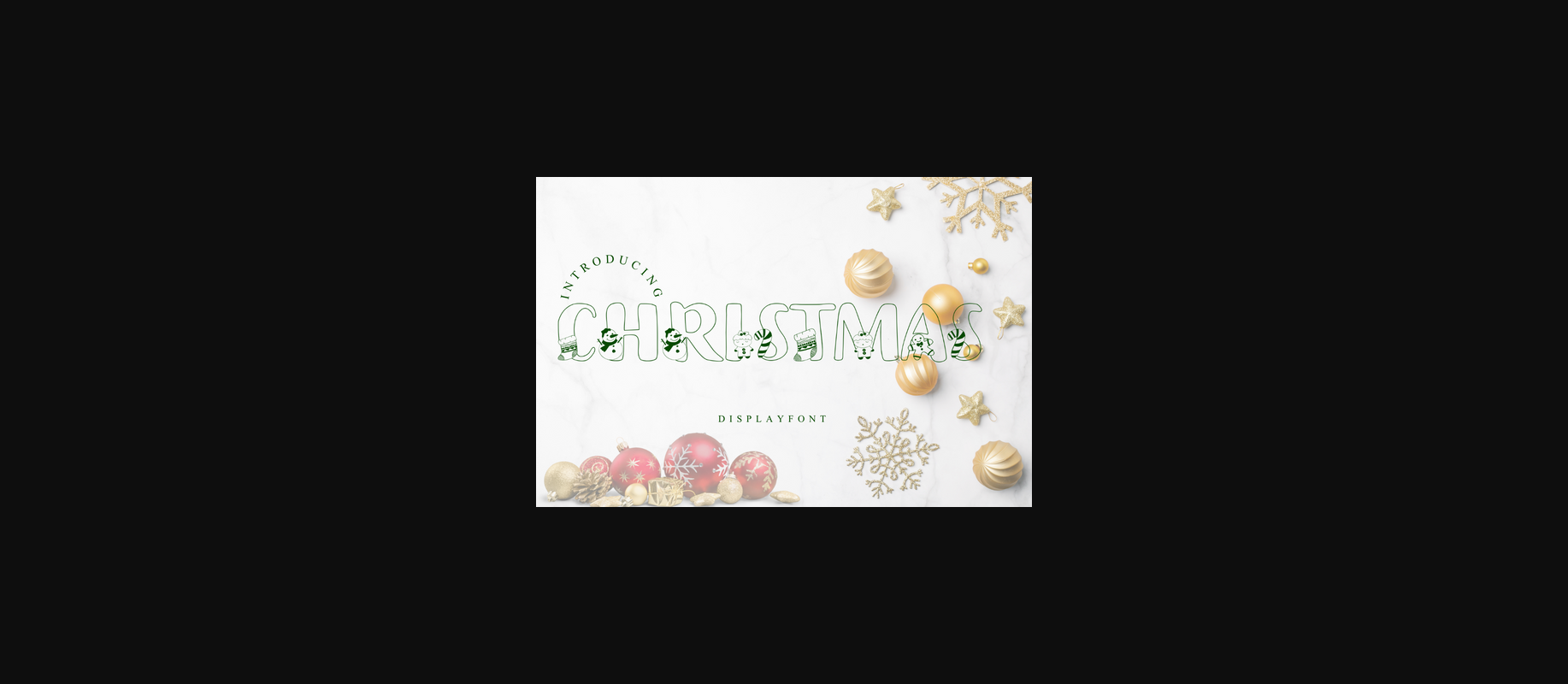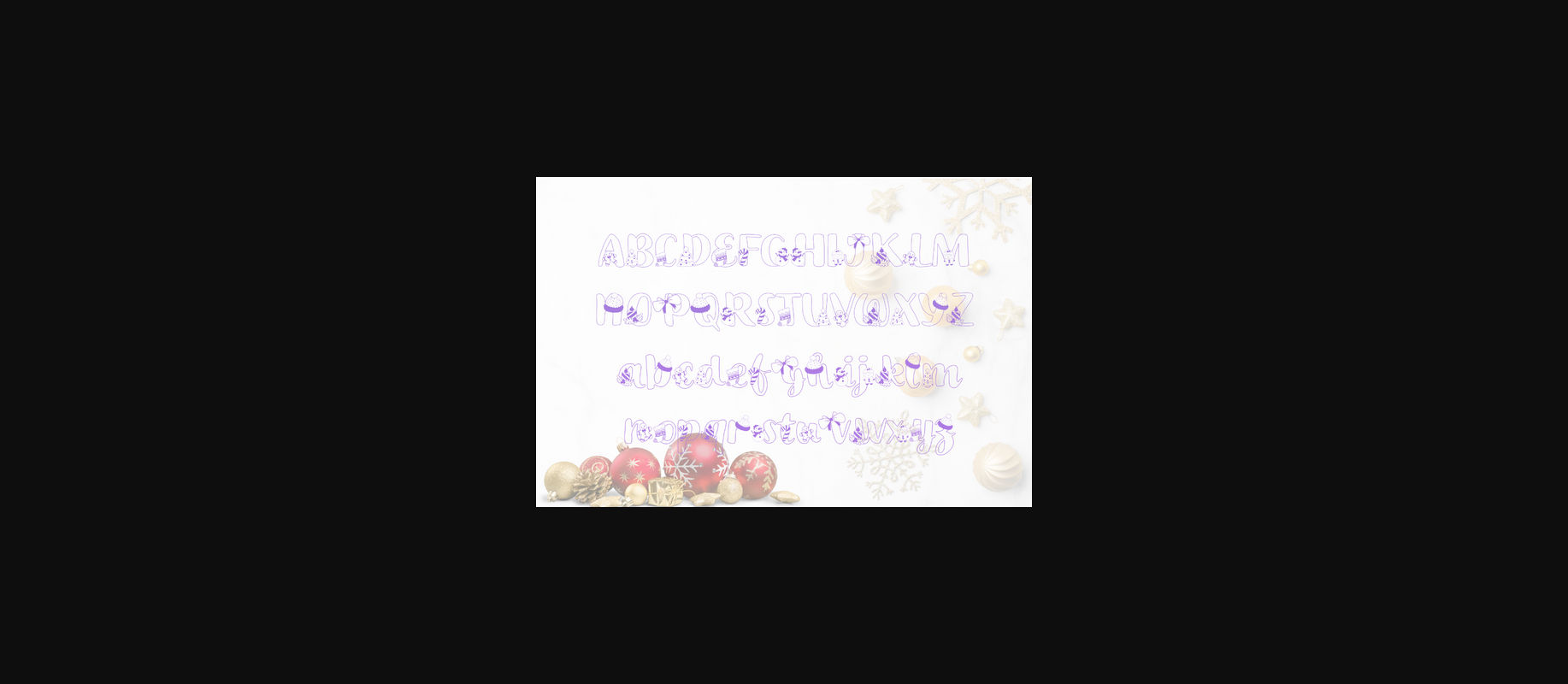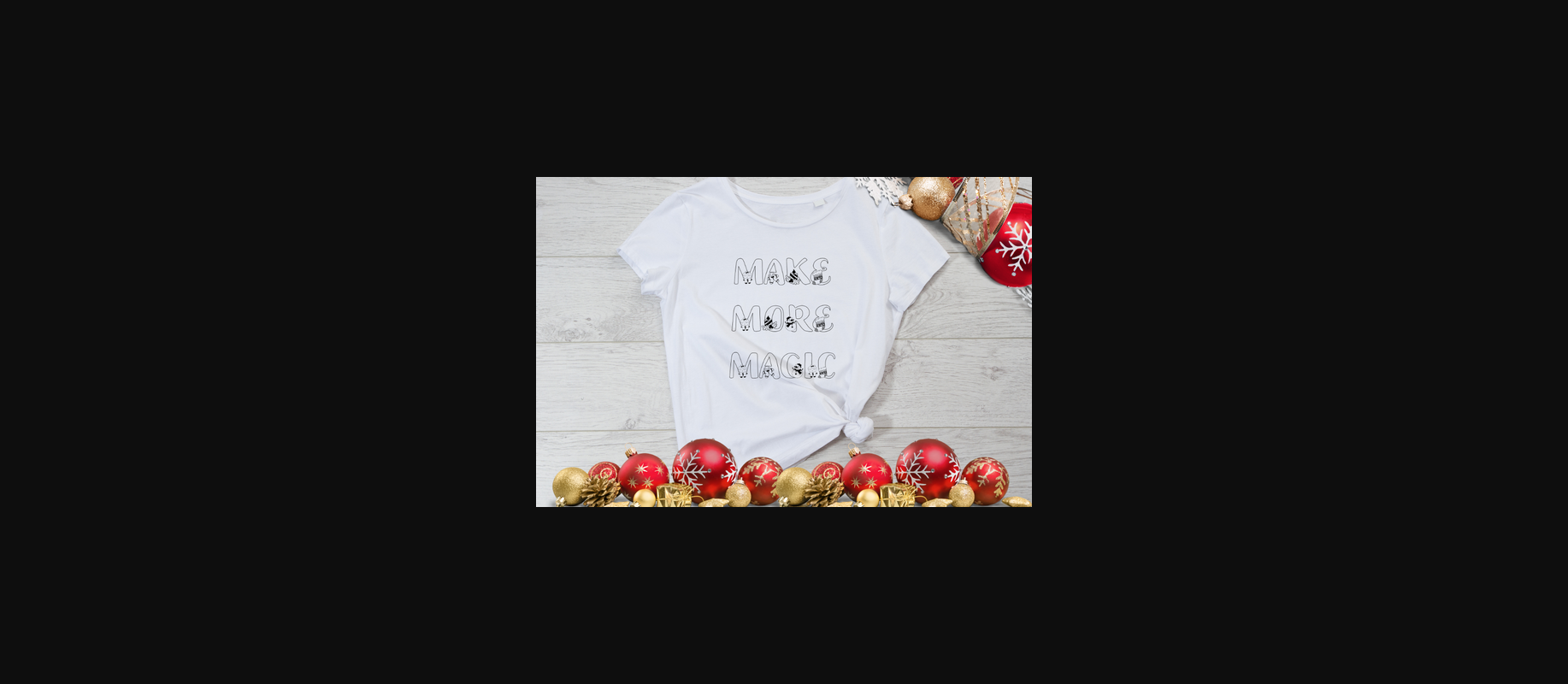
Christmas Font: A festive and decorative typeface where each letter is adorned with iconic Christmas elements like candles, candy canes, socks, Christmas tree, bows and more. Perfect for adding holiday cheer to your designs and messages!